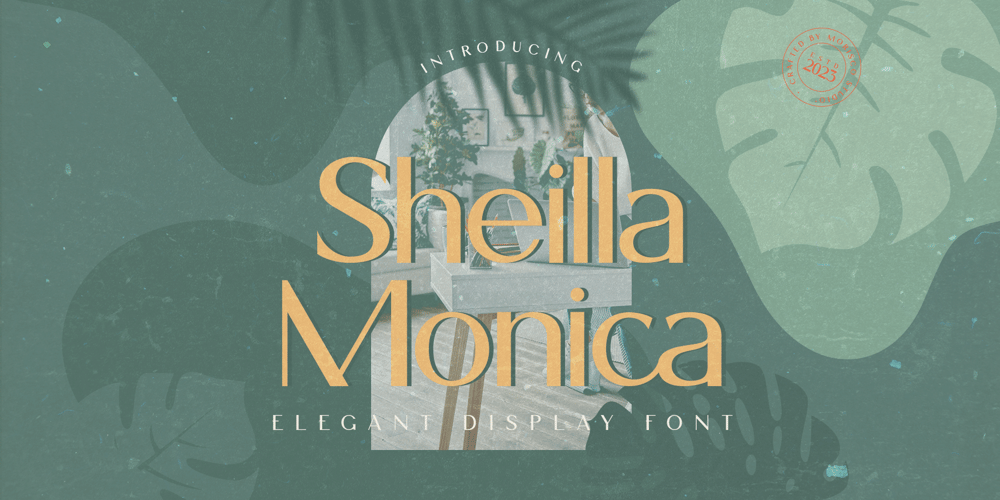
Sheilla Monica
Sheilla Monica font
Sheilla Monica Font Family was designed by Fathur Rahman and published by Morisco Studio. Sheilla Monica contains 1 styles and family package options. Sheilla Monica is an elegant typeface with a unique character designed by morisco studio. This typeface is well-suited for headlines and any project, like branding, print template, logo, and more.Features: Uppercase & Lowercase Symbols & Punctuation Multilingual Files you get:Sheilla Monica RegularI really hope you enjoy using Sheilla Monica. Please don’t hesitate to drop me a message if you have any questions. Thank You and Happy Designing